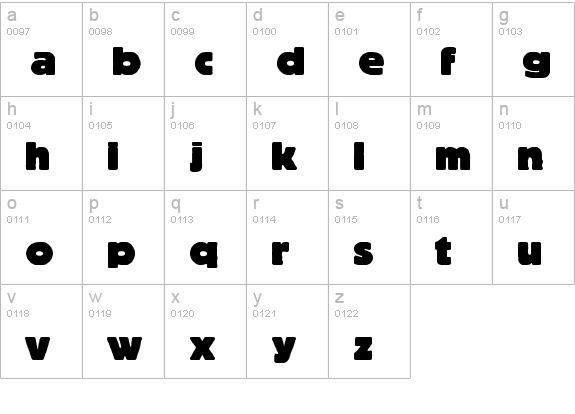
Block Berthold Heavy is a heavy, high-impact variant in the Block typeface family \xE2\x80\x94 well suited to high-impact headlines, posters, and display advertising.
Block Berthold Heavy is a bold and impactful typeface that exudes strength and modernity. With its wide and sturdy letterforms, this font commands attention and makes a statement in any design project. Its clean lines and sharp edges give it a contemporary feel, perfect for conveying a sense of authority and confidence. What makes Block Berthold Heavy even more appealing is that it is available for free download at FontsMarket.com. This means that designers and creatives can easily access this powerful font without any cost, making it a valuable addition to their font library. Whether used for headlines, logos, posters, or any other design application, Block Berthold Heavy is sure to make a strong visual impact. Download Block Berthold Heavy for free today at FontsMarket.com and elevate your designs with this bold and striking typeface.